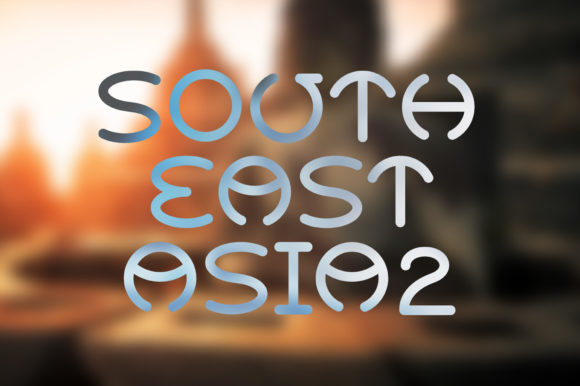
In the realm of display fonts, Southeast Asia 2 Font stands tall, an oriental-inspired masterpiece ready to transport your designs to exotic new heights. This font is not just a collection of letters; it's a gateway to a world of captivating designs, an artistic passport to unleash your creativity like never before.
Picture this: you're working on a project that needs a touch of the Orient, a design that whispers of ancient tales and forgotten empires. With Southeast Asia 2 Font, you can paint your digital canvas with the colors of the Far East, creating visuals that resonate with a sense of timeless beauty.
This font is an artist's dream, a versatile chameleon that adapts seamlessly to a myriad of design styles. It's the perfect choice for logos that demand attention, posters that scream for impact, and branding projects that yearn for distinction. Southeast Asia 2 Font elevates ordinary designs to extraordinary heights, transforming them into magnetic masterpieces that captivate and inspire.
But Southeast Asia 2 Font is more than just visually stunning; it's a font that speaks to the soul. Its intricate characters carry an aura of mystery and intrigue, inviting viewers to explore the hidden depths of your designs. It's a font that tells stories, not just through words, but through its very presence on the page.
Imagine your designs adorned with Southeast Asia 2 Font, each letter a brushstroke in a grand symphony of visual art. Your creations will radiate a timeless elegance, a beauty that transcends trends and fads. You'll be amazed at how this font breathes life into your work, adding a touch of magic that leaves a lasting impression on your audience.
Southeast Asia 2 Font is not just a font; it's an experience. It's an opportunity to transport your audience to faraway lands, to ignite their imaginations, and to create designs that leave an indelible mark on their minds.
So, embrace the allure of the Orient, let Southeast Asia 2 Font guide your creativity, and watch as your designs blossom into masterpieces that stand the test of time.